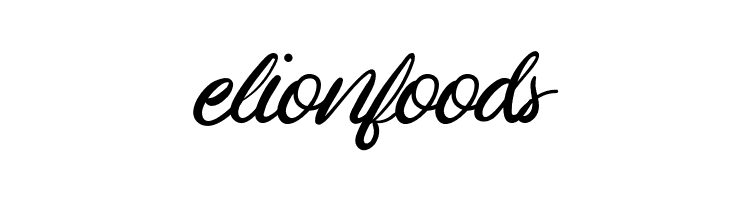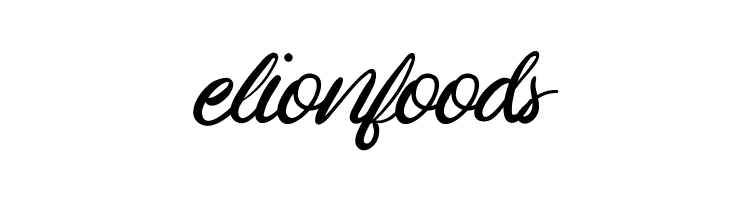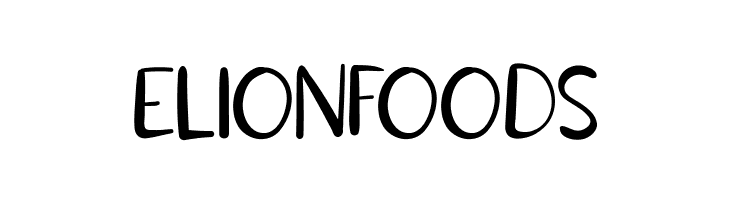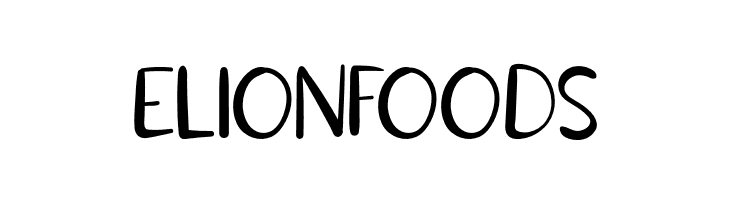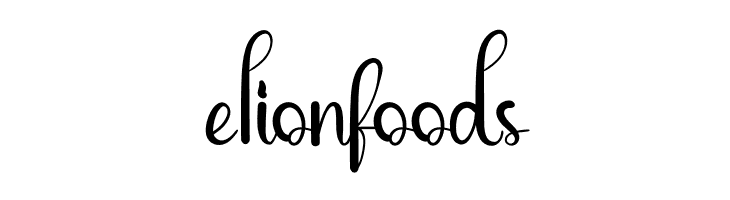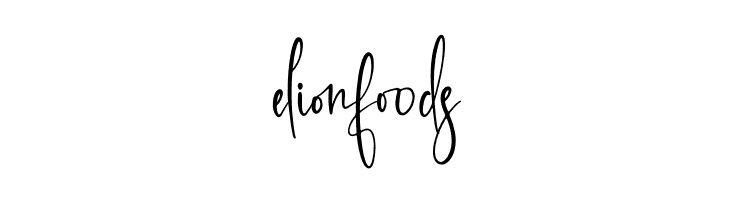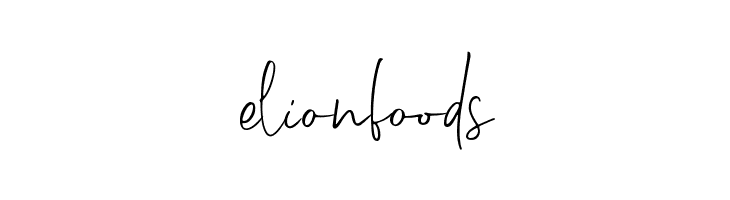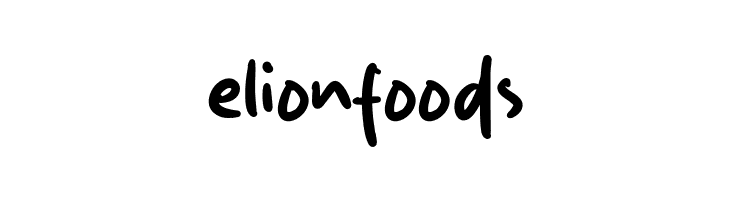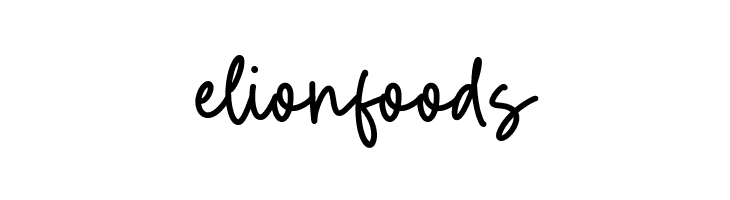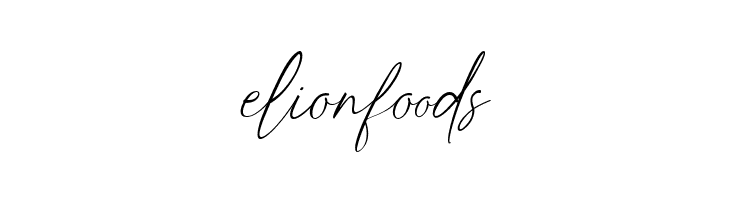
A lively, cursive script font with fluid, connected strokes and varying thickness.
A lively, cursive script font with bold, interconnected strokes.
A playful, hand-drawn sans-serif font with a modern and friendly appearance.
A playful, handwritten-style font with bold, rounded characters.
A whimsical and elegant font with tall, narrow letters and playful loops.
A dynamic and elegant handwritten font with fluid strokes.
Casual handwritten script font.
Casual handwritten font with a playful style.
Casual handwritten script font.
Elegant handwritten script font.